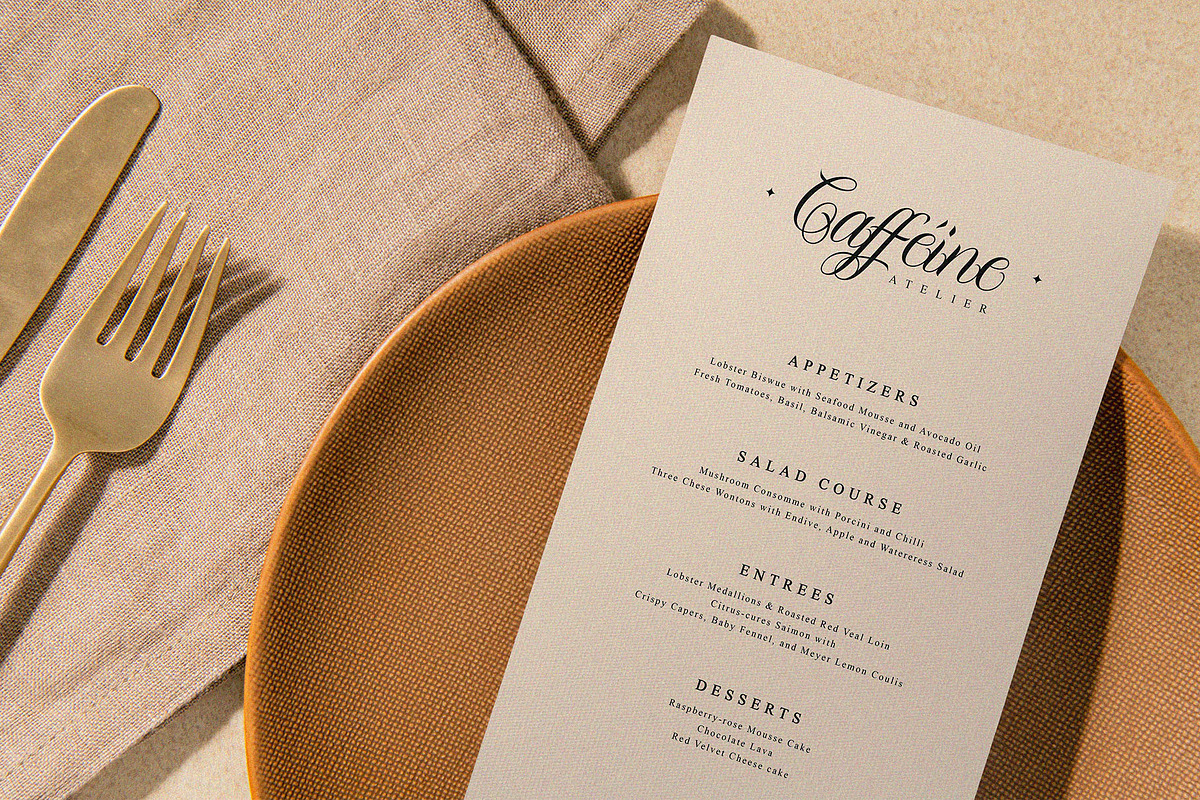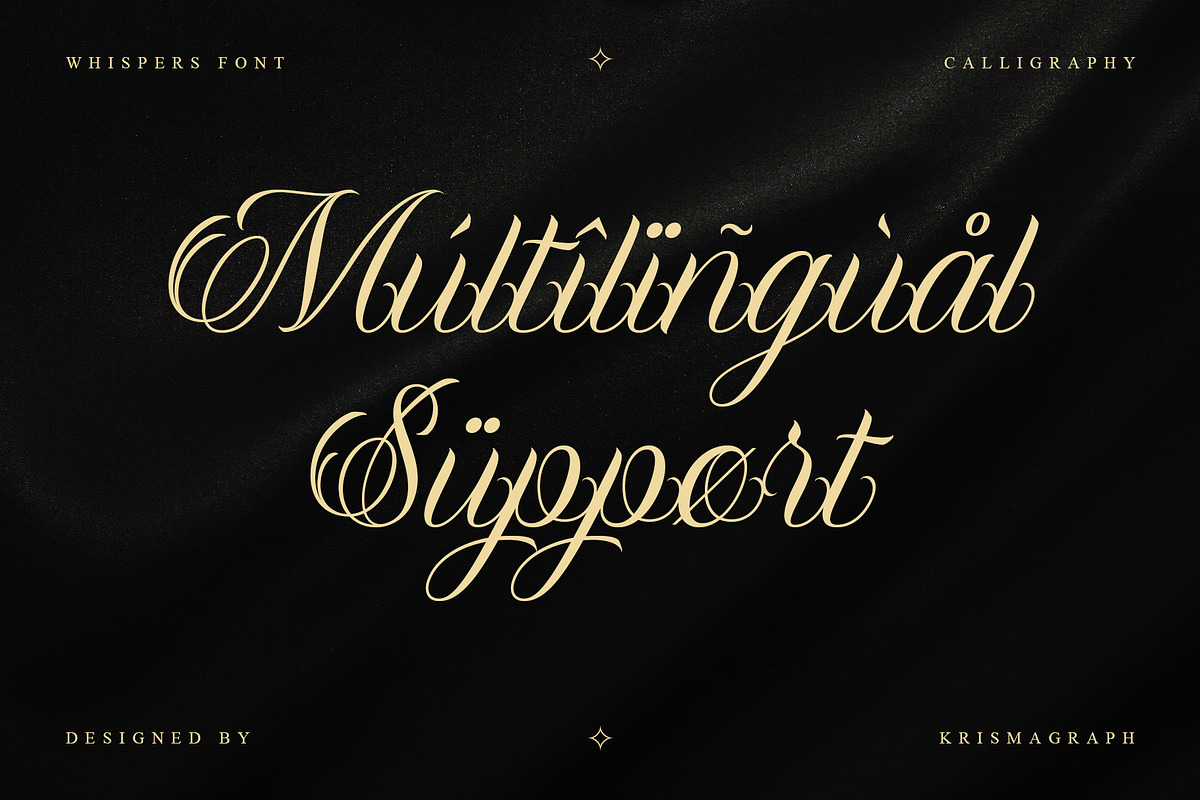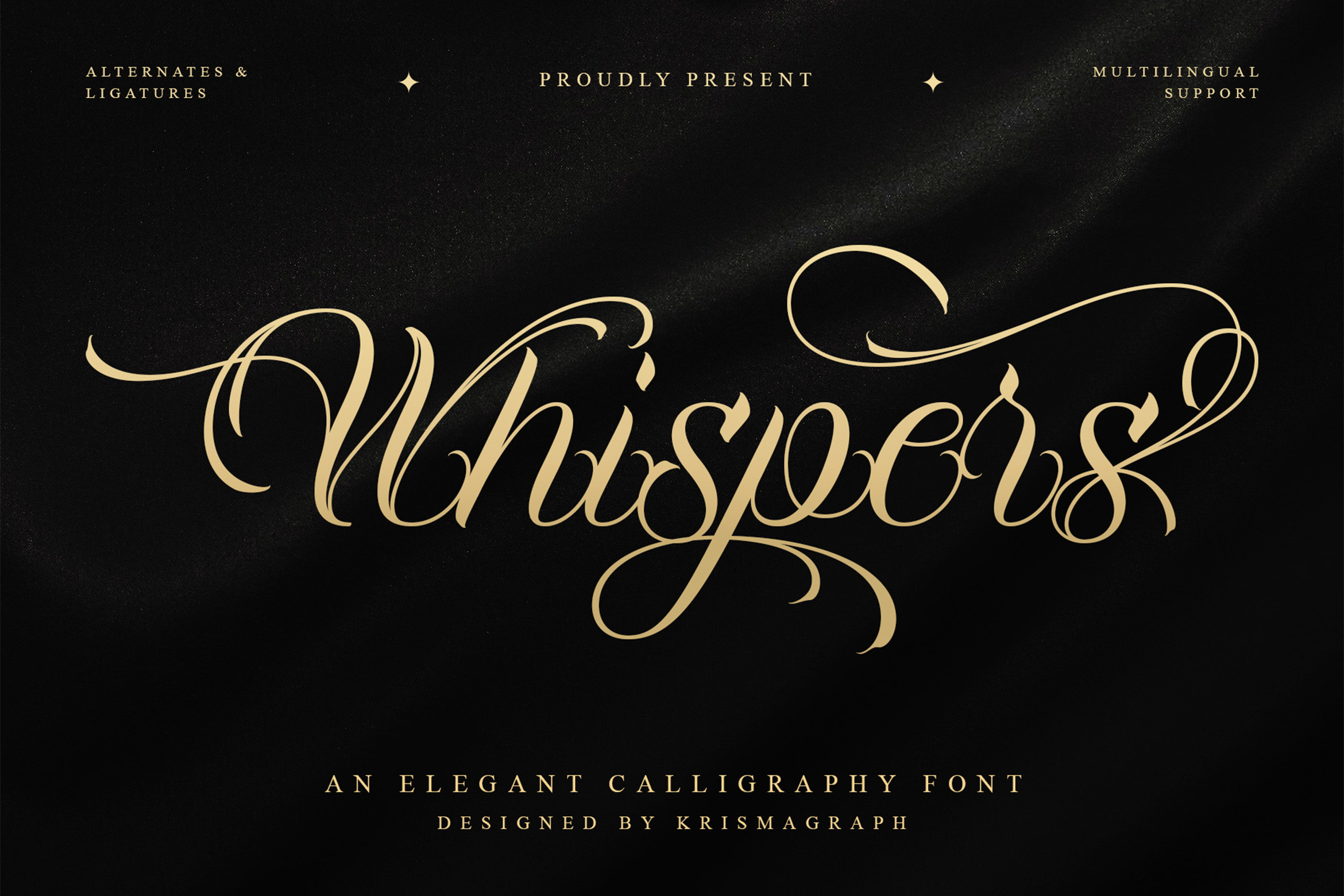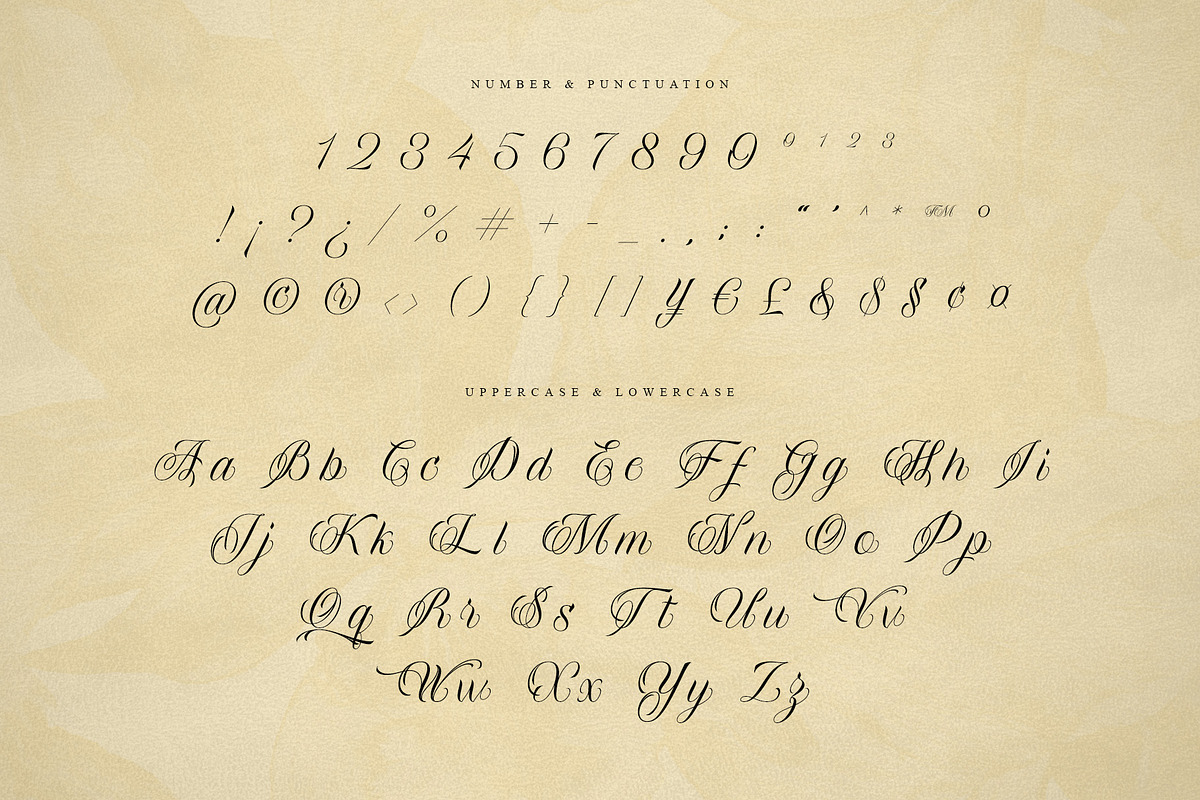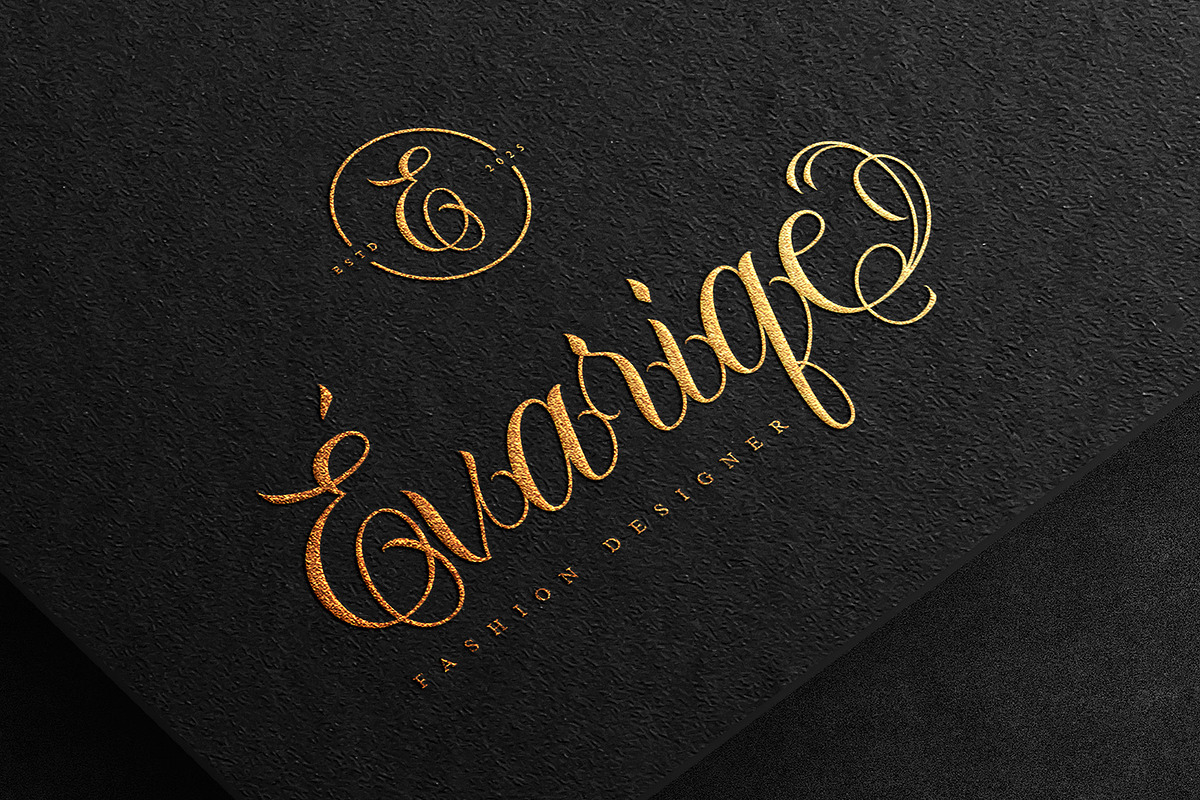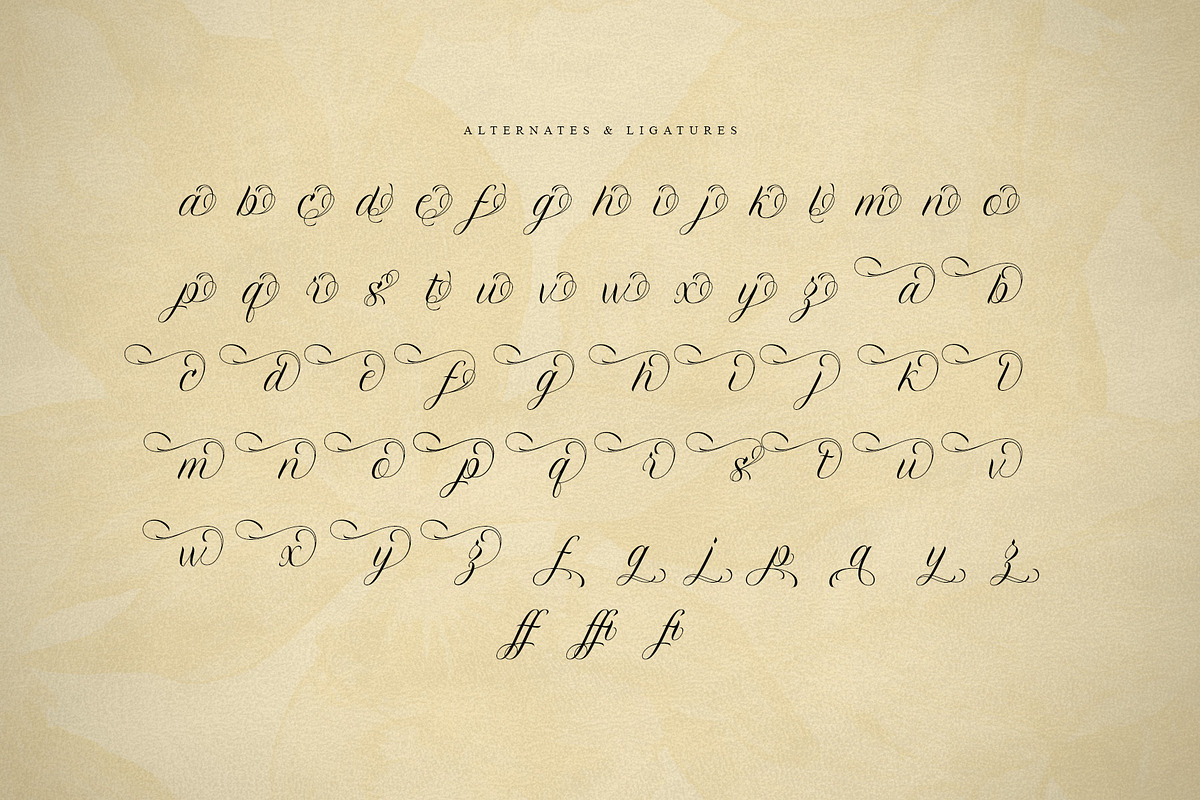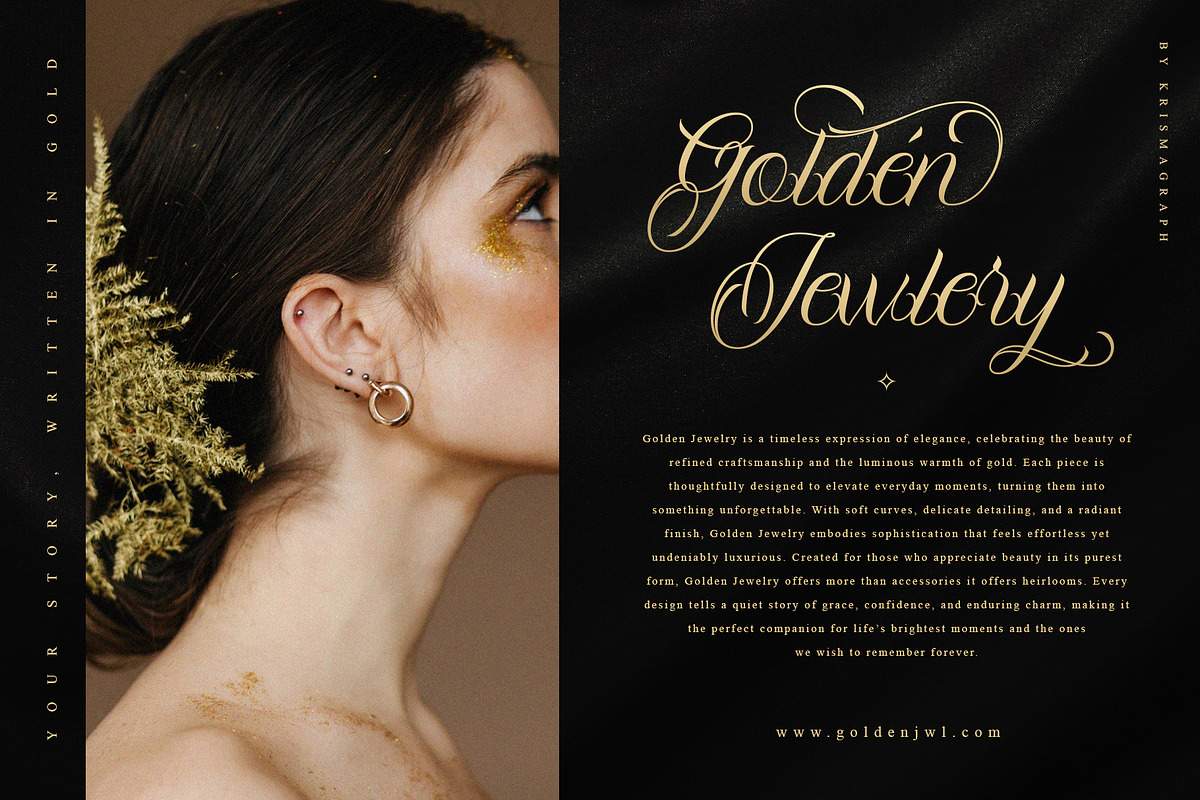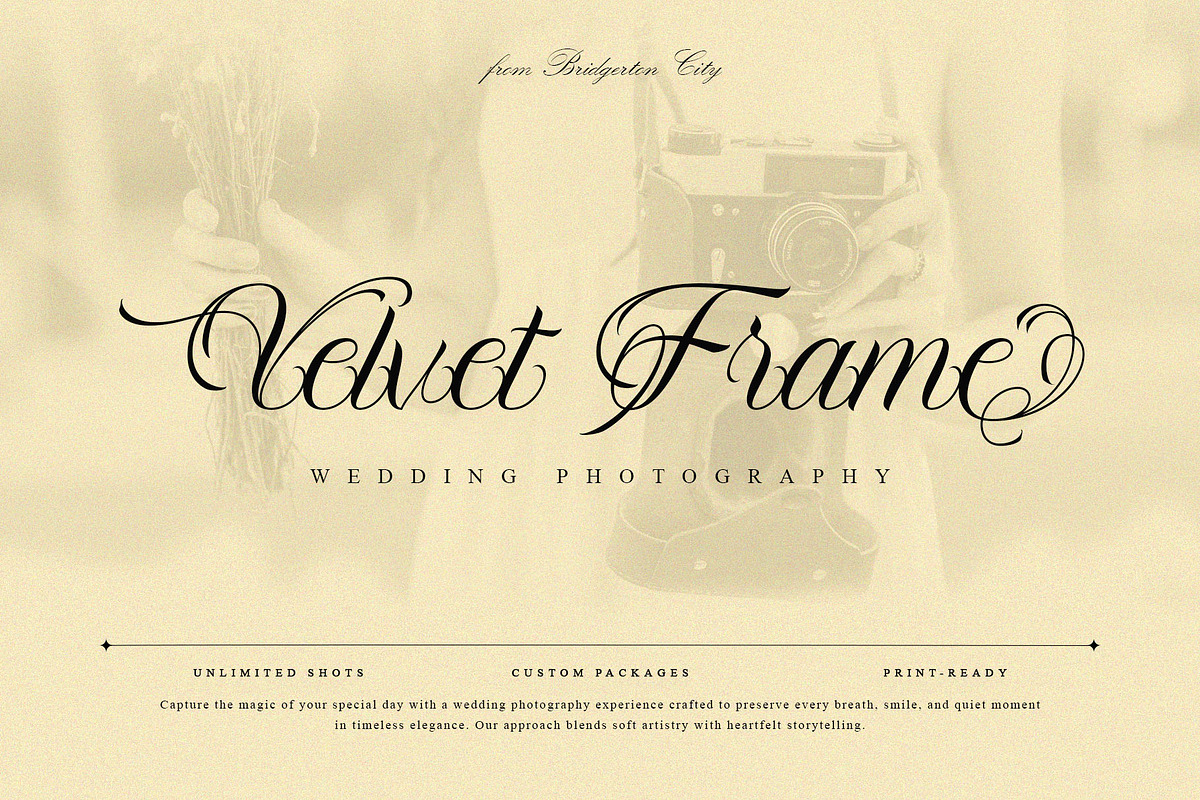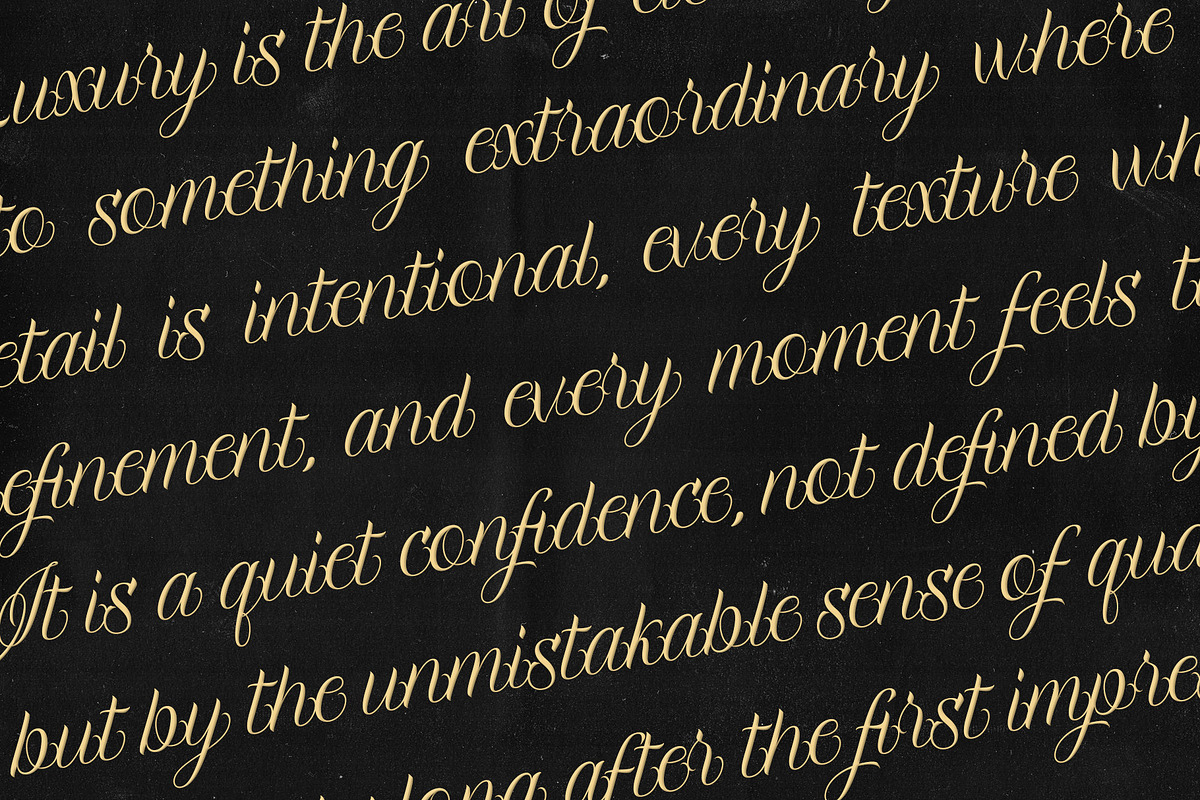
Whispers — Elegant Calligraphy Font
Whispers is an elegant calligraphy font created with refined strokes and graceful movement. Its flowing letterforms and ornamental swashes evoke sophistication, romance, and timeless beauty — perfect for invitations, editorial titles, branding, packaging, and high-end creative projects.
Designed with detailed alternates & ligatures and full multilingual support, Whispers offers flexibility while preserving an authentic handwritten feel. Every curve is carefully crafted to achieve harmony between elegance and readability.
- Numbers, fractions
- Punctuation and symbols